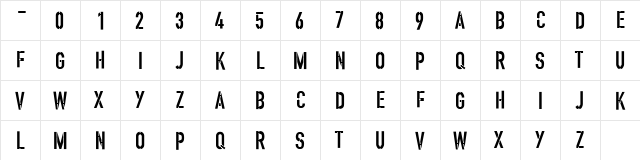
Wire Regular
Design Context for Wire Typeface
Wire takes a measured approach to typography — its balanced proportions and neutral character make it a reliable workhorse for both digital and print work.